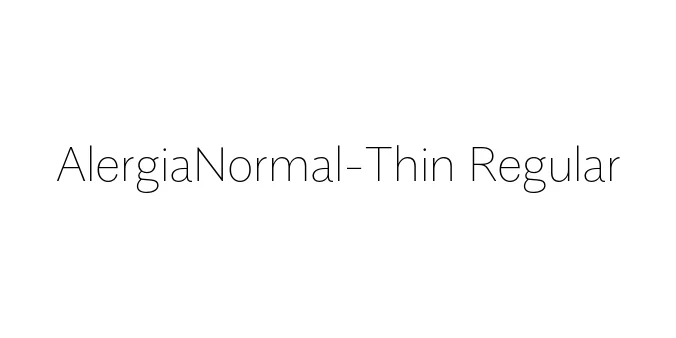
AlergiaNormal-Thin Regular
Designed by Mateusz Machalski
AlergiaNormal-Thin Regular is a contemporary sans-serif typeface that belongs to the extensive Alergia superfamily, crafted by the acclaimed designer Mateusz Machalski. This specific weight embodies a hybrid design philosophy, merging the rigid structures of geometric fonts with the fluid, approachable characteristics of humanist typefaces. The Thin weight is particularly notable for its delicate strokes and high-fashion sensibility, providing a sophisticated and airy aesthetic to any typographic layout.
The font was engineered to excel in high-resolution environments, featuring a tall x-height and subtle character distinctions that ensure it remains legible despite its slender profile. It is a favorite among creative directors for minimalist branding and editorial projects that require a touch of modern elegance. Whether used on digital platforms or in high-end print media, AlergiaNormal-Thin Regular offers a professional and polished appearance that stands out in the world of modern typography.
AlergiaNormal-Thin Regular Best Uses
Excellent for high-end magazine headlines and fashion editorial spreads.
Ideal for minimalist luxury brand logos and sophisticated corporate identities.
Perfect for hero text on clean, white-space-oriented websites and modern UI designs.
Works well for large-format advertisements where a delicate and refined look is desired.